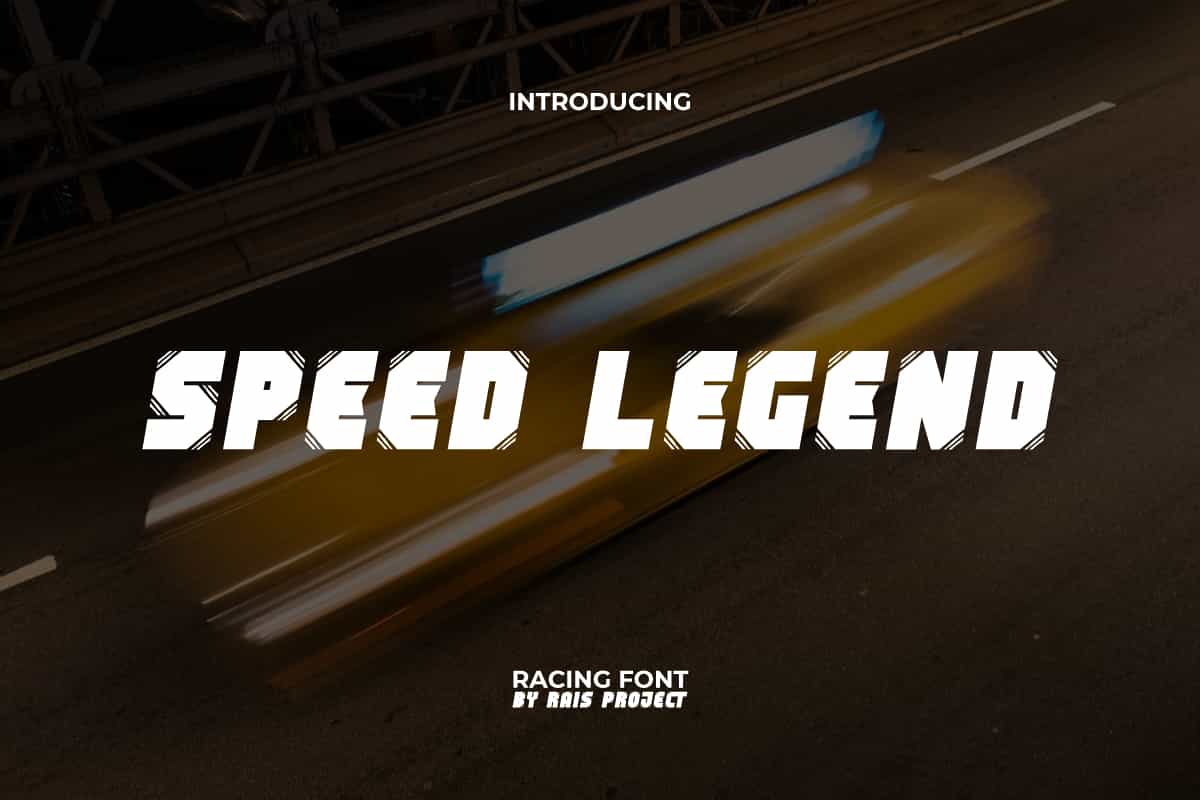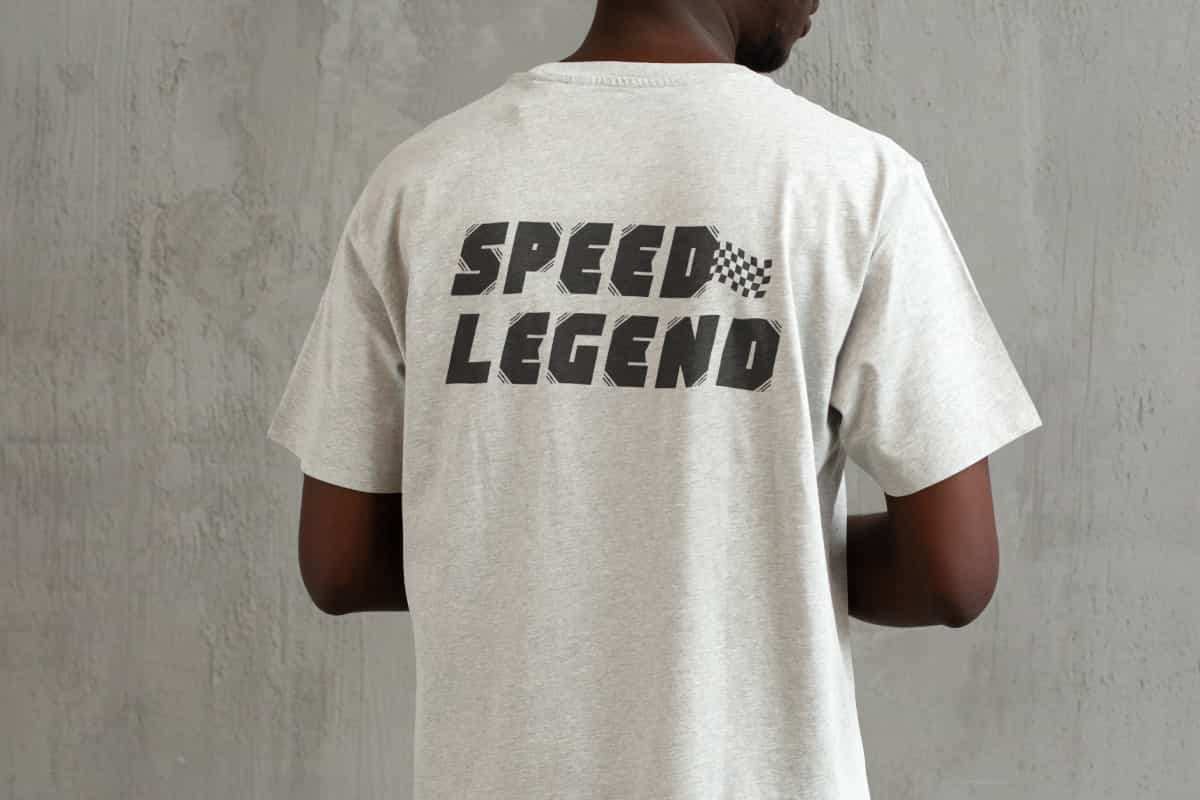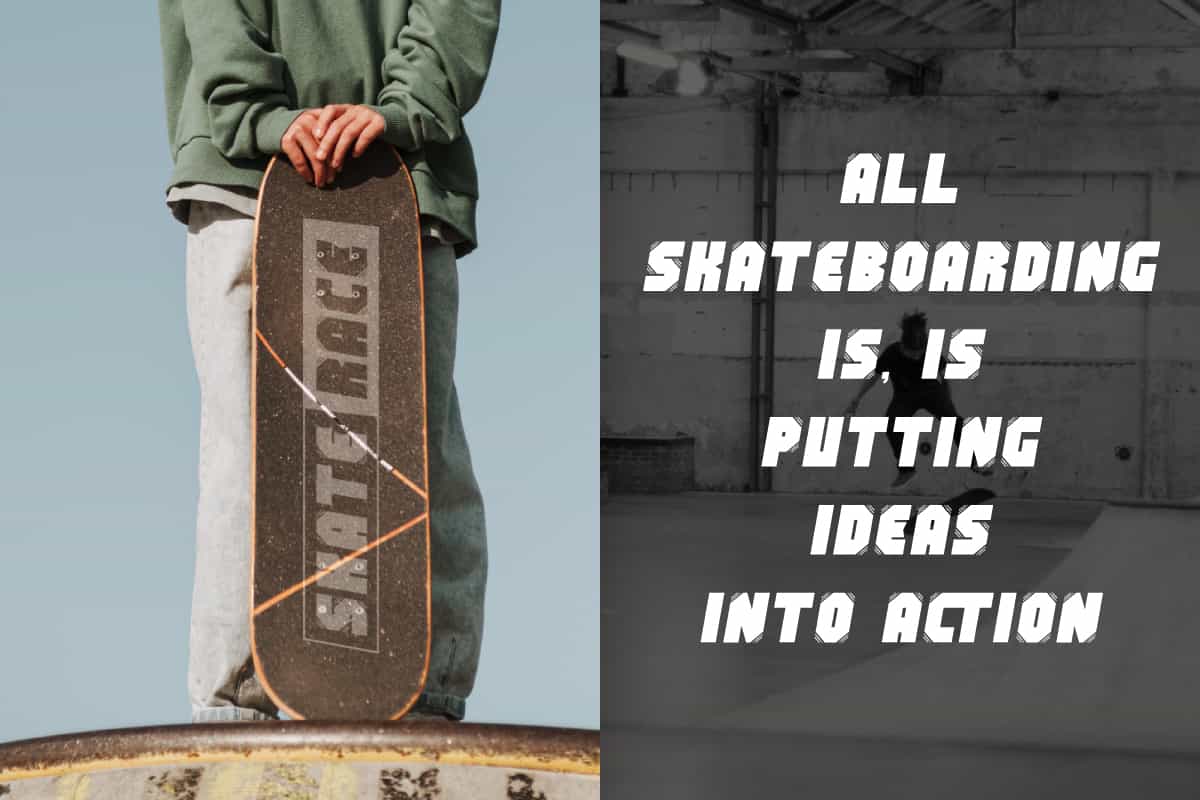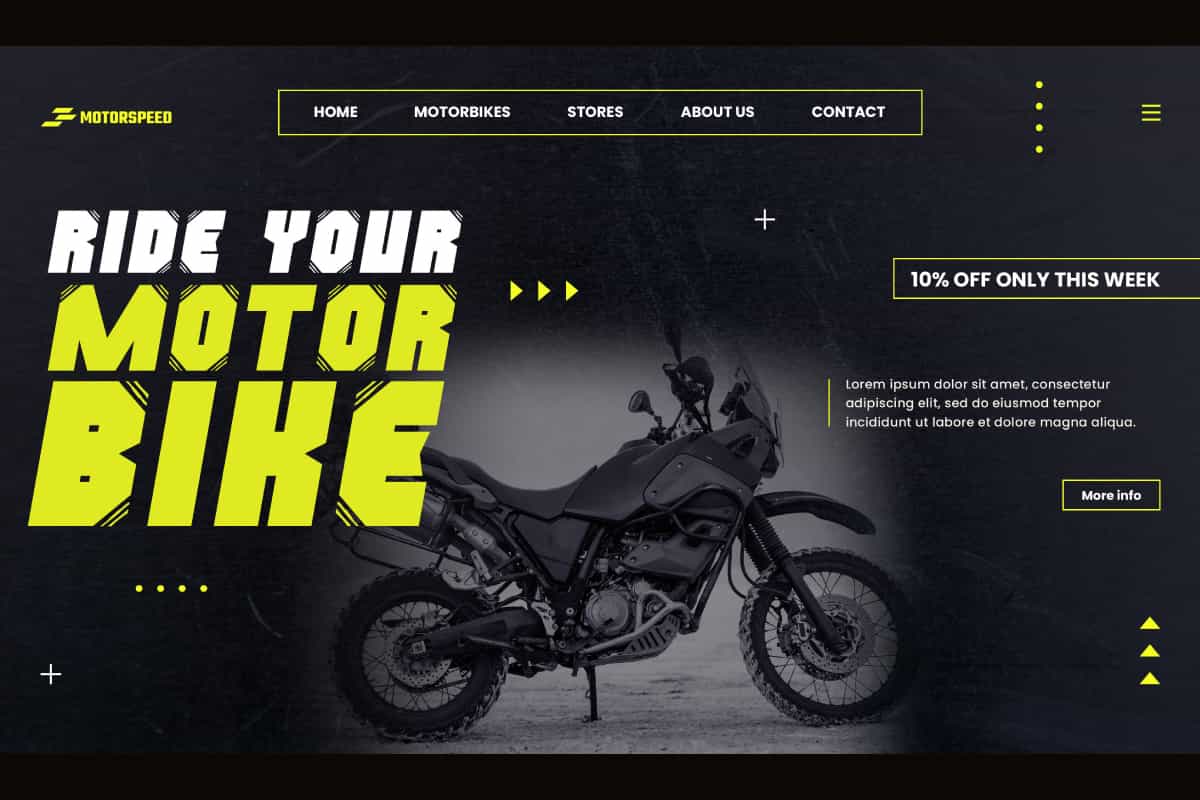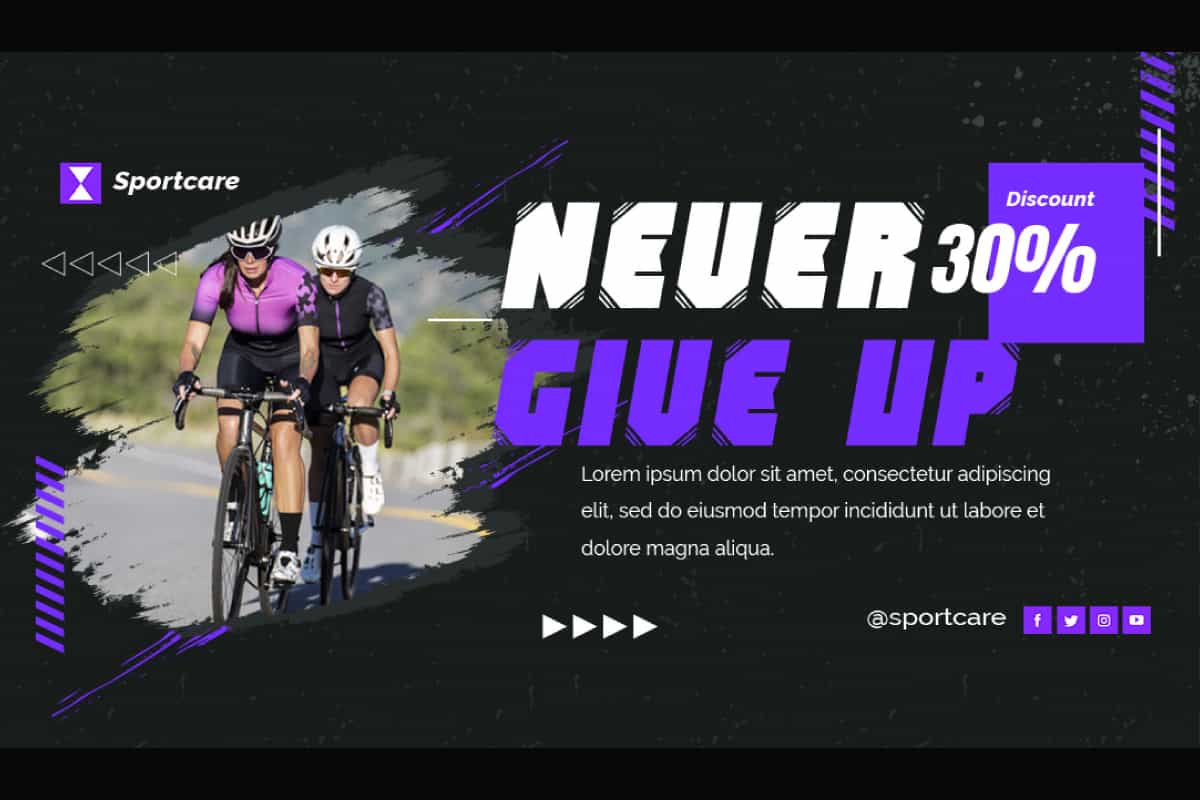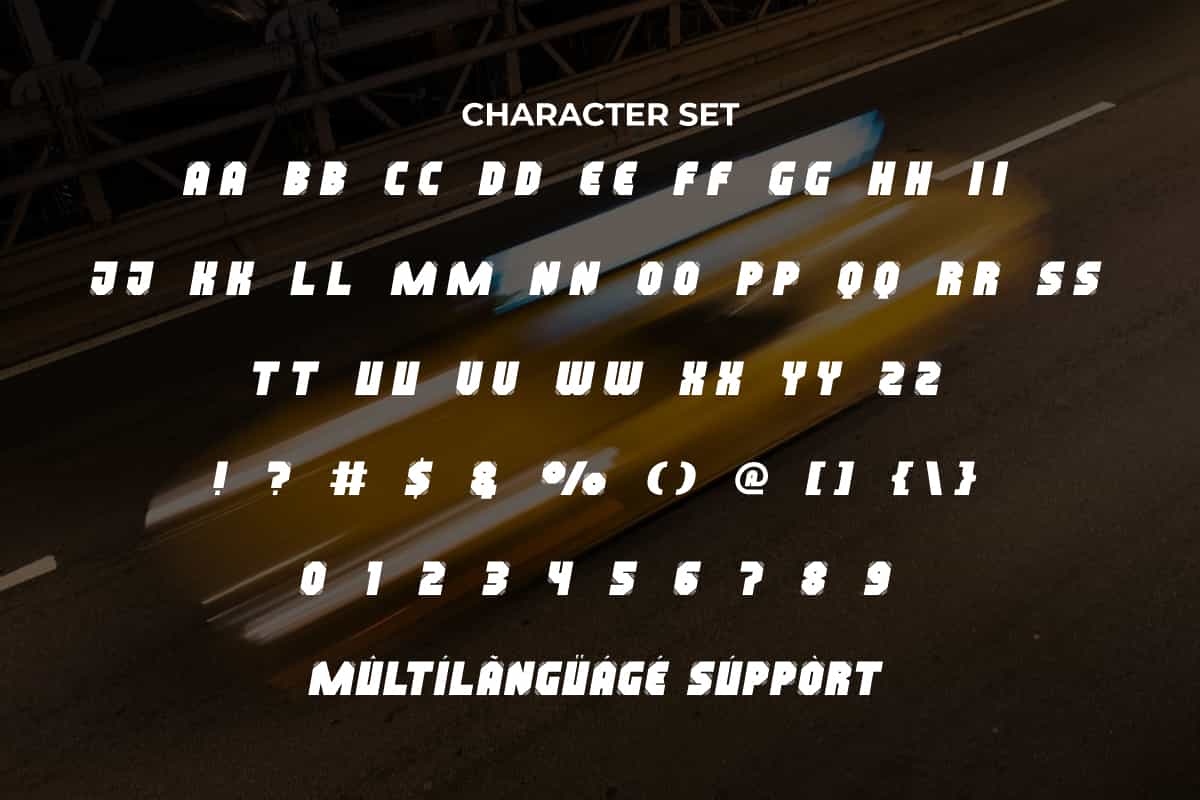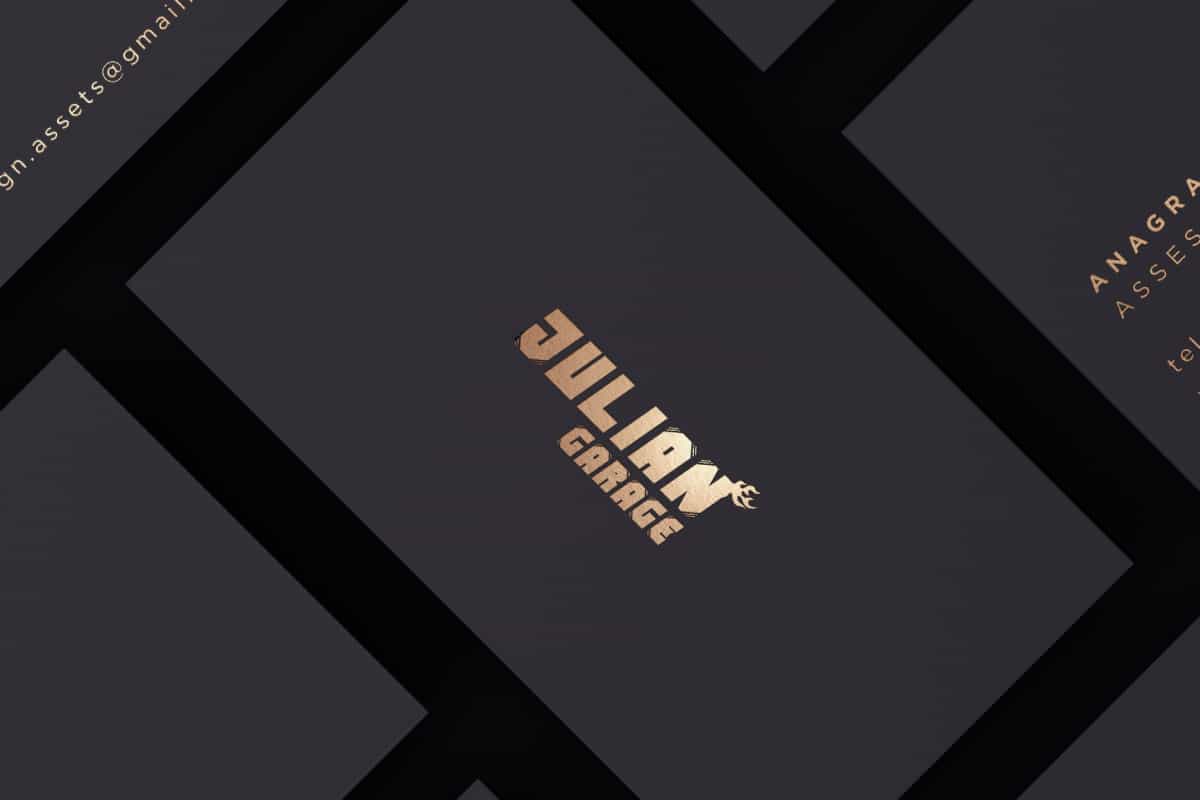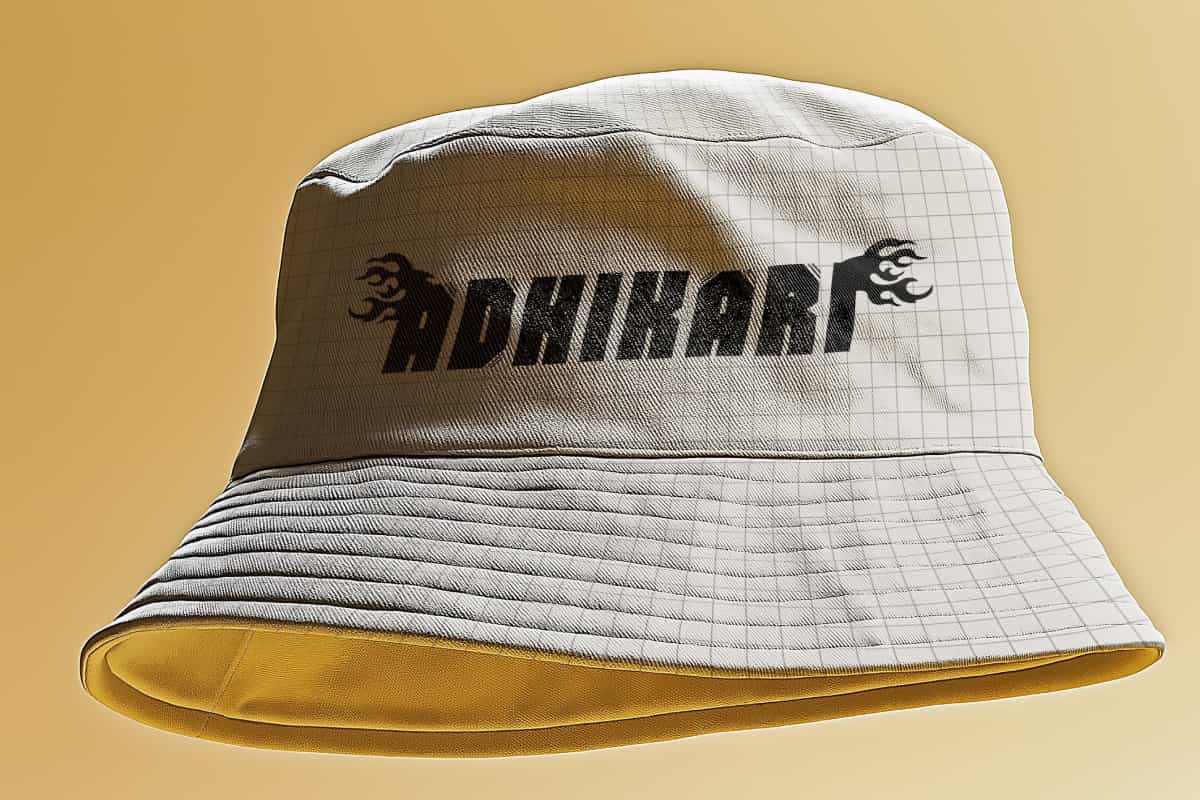
Speed Legend Font is a speedy bold and modern decorated racing display font, by RaisProject. The uniqueness of this display font lies in each corner which has a thin line cut so that it becomes its characteristic. It will be good for label, poster, invitation, signage, cover, menu, custom design, brand image, product packaging, quotes, stationery, web, and more! You can see the demo font below, input any word you want so you can see what it looks like: